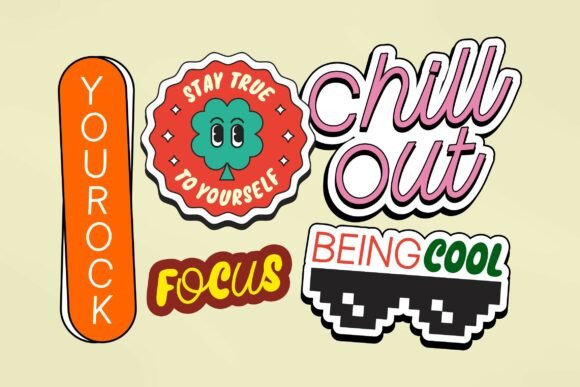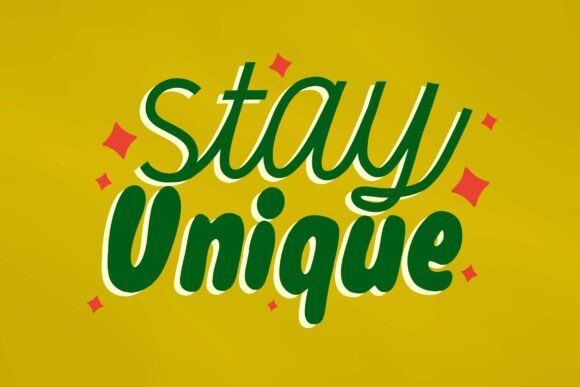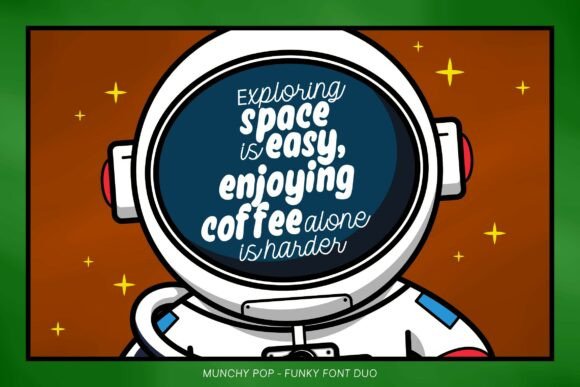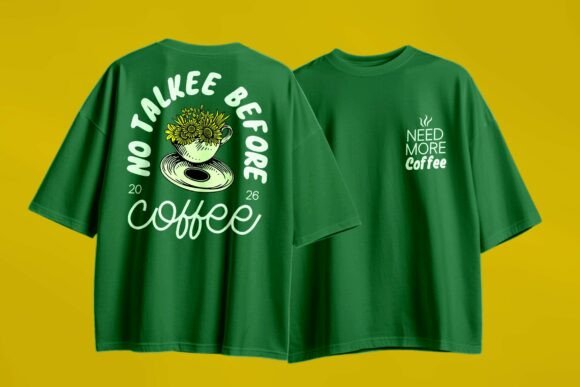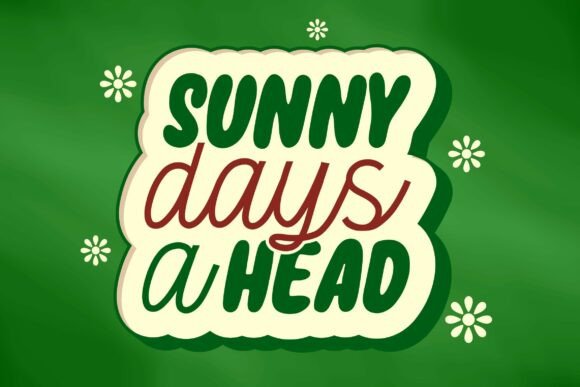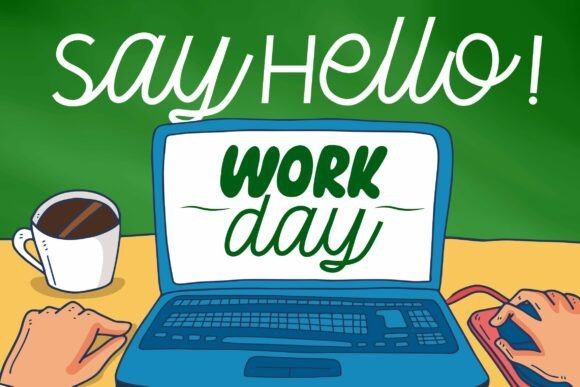
Introduction to Munchy Pop Font
Have you ever been scrolling through your social media feed, and a visually striking image catches your eye? You can’t help but stop and stare, mesmerized by the playful combination of colors and typography. For designers, moments like these are the result of a perfect blend of creativity and the right design resources. And that’s exactly what the Munchy Pop Font duo delivers.
As a design resource, Munchy Pop Font is a game-changer for any creative project that needs a fun and cheerful touch. With its bold personality and smooth elegance, this font duo is sure to elevate your designs and leave a lasting impression on your audience.
Whether you’re working on a branding project, creating food packaging, or designing posters for kids, the Munchy Pop Font is an ideal choice. Plus, with its high-quality design and transparent background, you can easily download and use it in your next creative project.
Key Features of Munchy Pop Font
• High-quality design resource ideal for creative projects, offering a unique and eye-catching style.
• Comes with a transparent background, allowing for seamless integration into various design elements.
• Designed with a bold and playful style, perfect for use in logos, branding, and other creative applications.
Honest Review: Munchy Pop Font
I recently stumbled upon the Munchy Pop Font, a design resource that caught my eye with its quirky and playful vibe. This font is perfect for a creative project that requires a fun and energetic touch.
Here’s what I like about the Munchy Pop Font:
• ✨ High-quality design: The font is well-crafted and looks great on a transparent background, making it perfect for adding a pop of color to your design.
• ✨ Versatility: The Munchy Pop Font can be used for a variety of design projects, from social media graphics to branding materials.
• ⚠️ Limited character set: The Munchy Pop Font has a limited character set, which may not be suitable for projects that require a wide range of characters.
• ⚠️ Not ideal for formal projects: The font’s playful vibe may not be suitable for formal or professional projects, so use it wisely.
Overall, I’m impressed with the Munchy Pop Font’s unique design and versatility. While it may not be perfect for every project, it’s a great addition to any designer’s toolkit, especially for creative projects that require a fun and energetic touch.
Use the Munchy Pop Font in combination with a transparent background to create stunning graphics and designs. Experiment with different font sizes and colors to achieve the desired effect.
The Munchy Pop Font is ideal for use in logos, social media graphics, and presentations. Its high-quality design makes it perfect for a variety of creative projects.